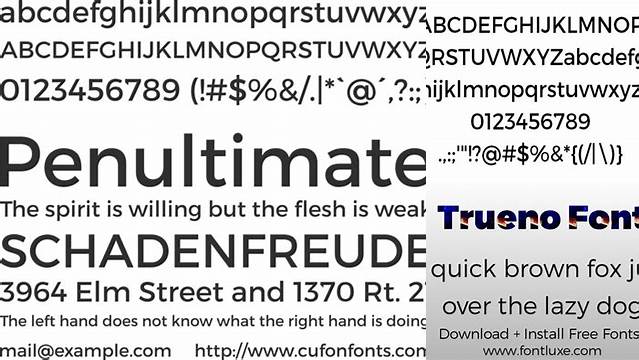
What is Trueno Two Font? Unveiling its Unique Charm
Let's start with the basics, shall we? The Trueno Two font is a stylish and modern typeface that's known for its bold presence and striking design. It belongs to the sans-serif family, which means it lacks the small strokes (serifs) found at the ends of some letterforms. This gives it a clean, contemporary look that's perfect for a wide range of applications. Think of it as the cool kid on the block, always ready to make a statement. The Trueno Two font often features a condensed width, allowing you to fit more text in a smaller space without sacrificing readability. Its strong character set makes it incredibly versatile, suitable for everything from headlines and logos to body text and even social media graphics. Its unique charm lies in its ability to be both attention-grabbing and easy on the eyes. This font often includes a variety of weights and styles, allowing you to customize the look and feel to perfectly match your project's needs. Whether you're designing a website, creating marketing materials, or just adding a touch of flair to your personal projects, the Trueno Two font is a fantastic choice. You can use the font for digital design as well as printed materials, the Trueno Two font's readability is top-notch. In addition to its visual appeal, it also has excellent kerning and spacing, which means the letters are perfectly aligned to create a balanced and harmonious feel. Overall, it's a great font for anyone looking to add a touch of modern sophistication to their design projects. If you want to make an impact on a project, it is a great choice. One of the key features is the font's legibility. This ensures that your message is easily understood by your audience, making it an ideal choice for both large headlines and smaller body text. The font style is also great for creating a sense of trust and authority, conveying a professional and reliable image. It's a great font for anyone looking to add a touch of creativity, professionalism and a good visual impact on their design projects. Therefore, if you are looking for a versatile, stylish, and free font for your projects, the Trueno Two font could be a great option!